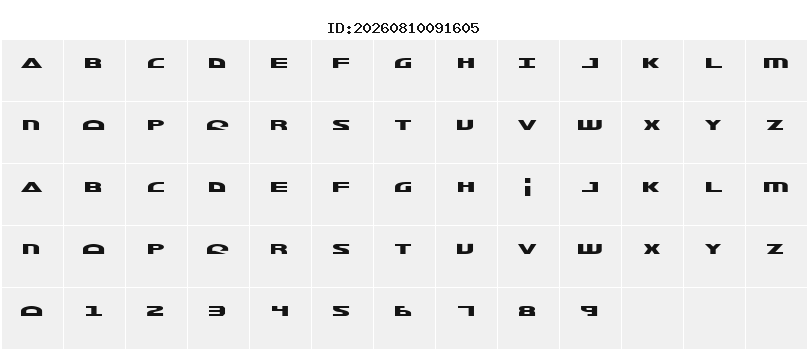
PCLifeMorse NK Preview
• Font Name: PCLifeMorse NK
• Full Font Name: PCLifeMorse NK
• PostScript Name: PCLifeMorseNK
About PCLifeMorse NK.ttf
PCLifeMorse NK.ttf is a modern, elegant sans-serif font designed for ultimate readability and visual harmony. Perfect for branding, headlines, web design, and print materials.